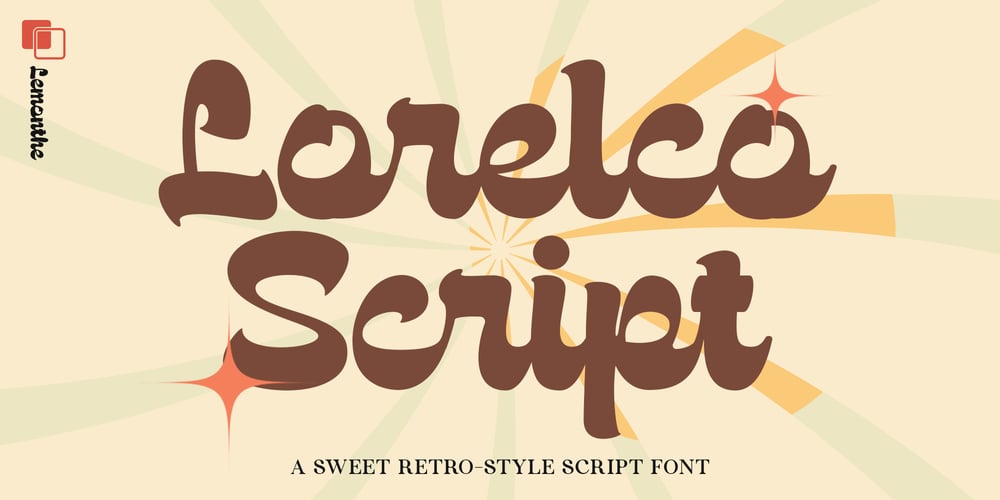
Lorelco Script Font Family was designed by Dwi Ahidian and published by Lemonthe. Lorelco Script contains 1 styles and family package options. Lorelco Script is a delightful retro-style script font that brings a sweet and nostalgic charm to your designs. Its bold and flowing letterforms are perfect for creating vintage-inspired logos, playful packaging, cheerful posters, and eye-catching social media graphics.